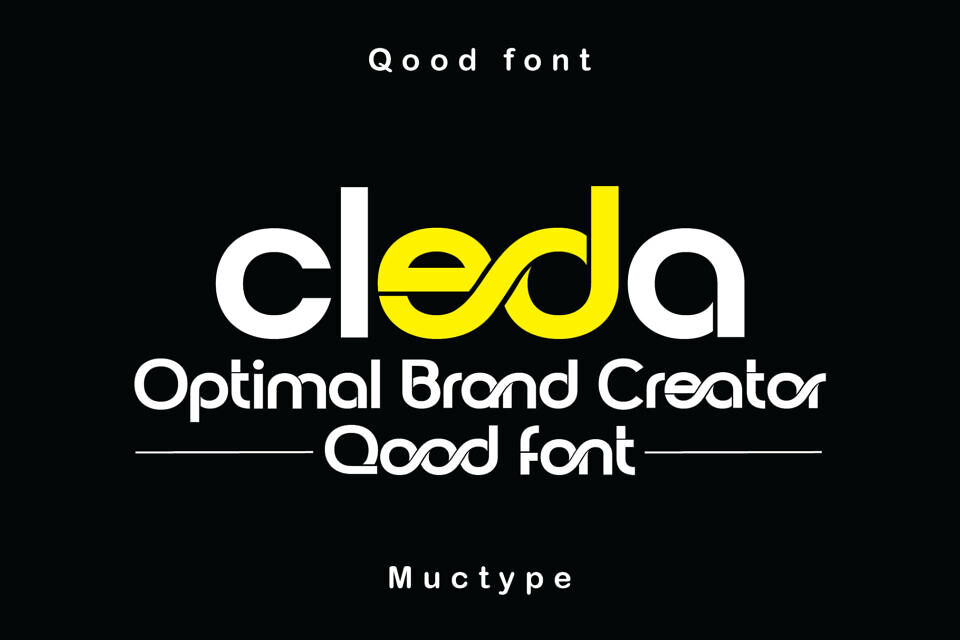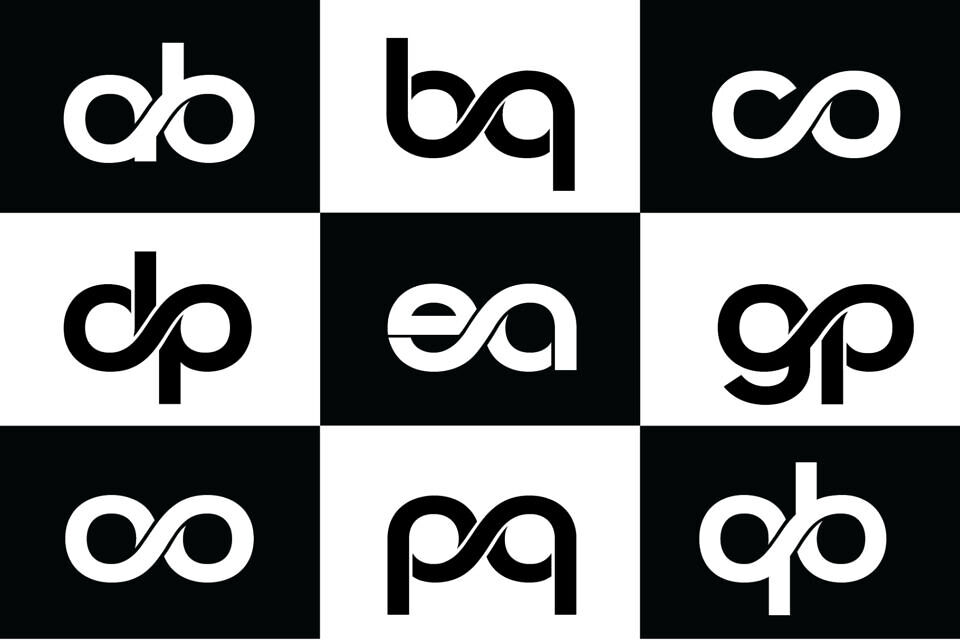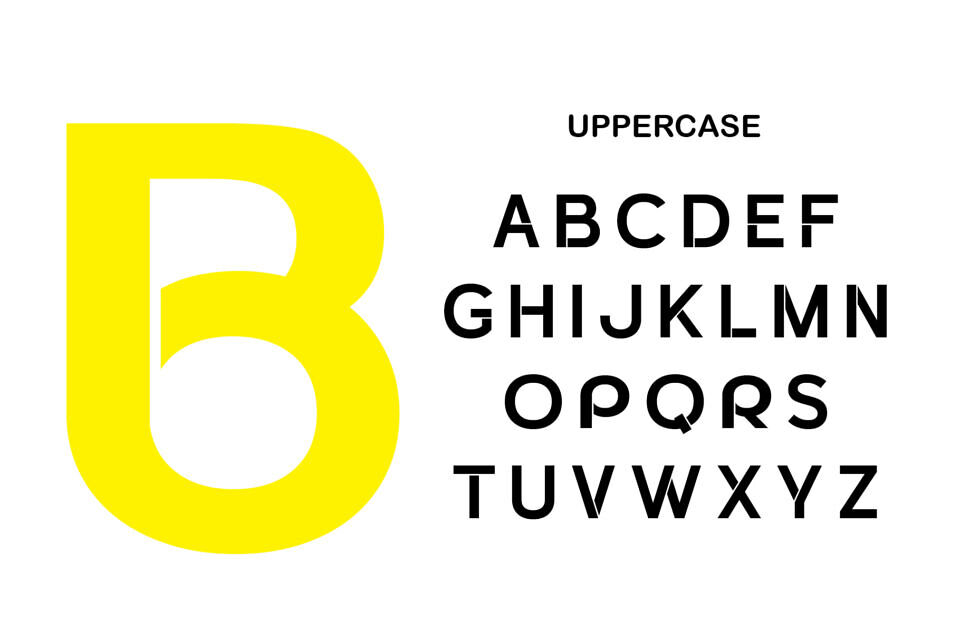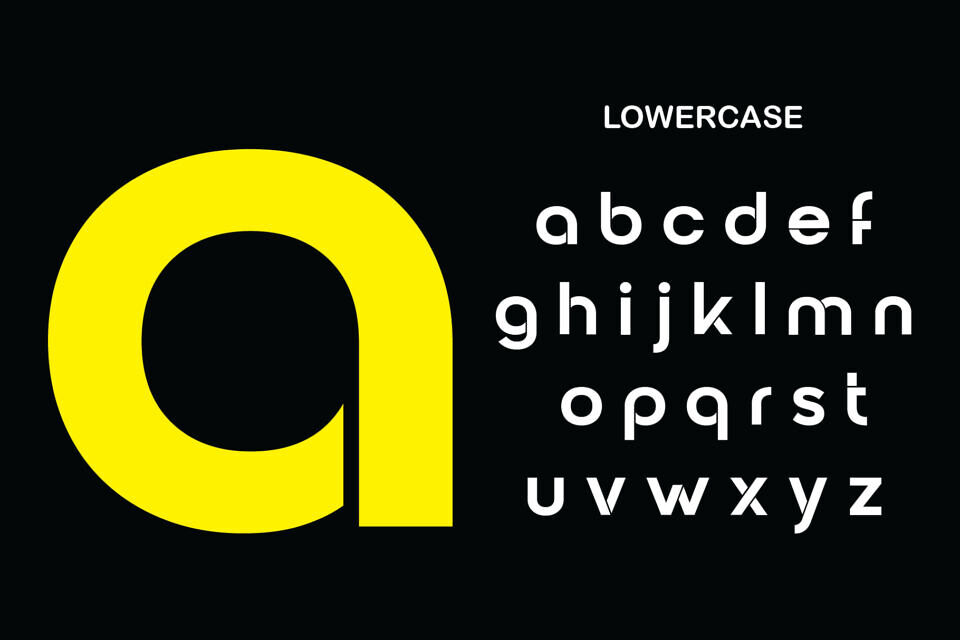
Qood Font
Crios is a mind-bending psychedelic display typeface that dances between art and chaos. With its fluid curves, distorted forms, and hypnotic rhythm, this typeface evokes the spirit of 1960s counterculture and modern surrealism. Each letter feels like it’s alive—morphing, melting, and moving with every glance.
Perfect for experimental posters, music festival branding, retro-futuristic visuals, or any project that craves a touch of bold eccentricity, Pulsar doesn’t just speak—it sings in visual waves.